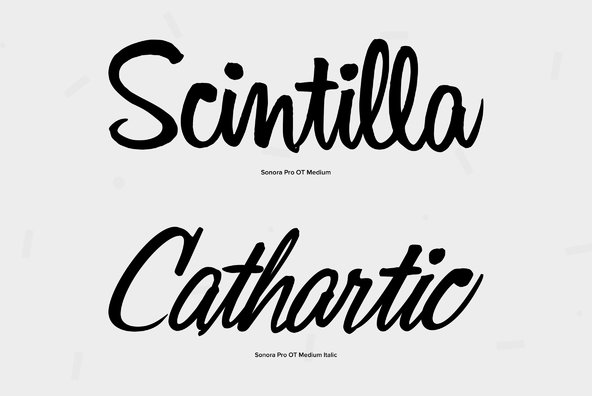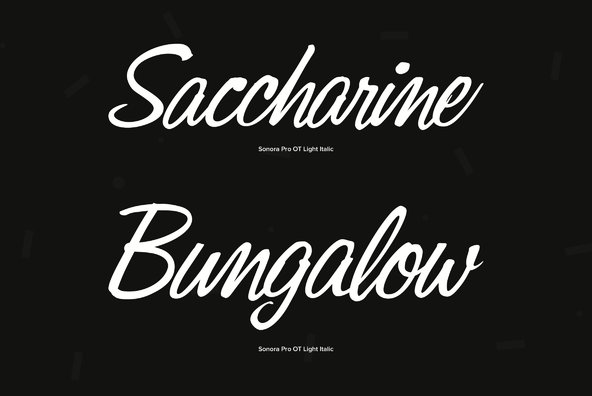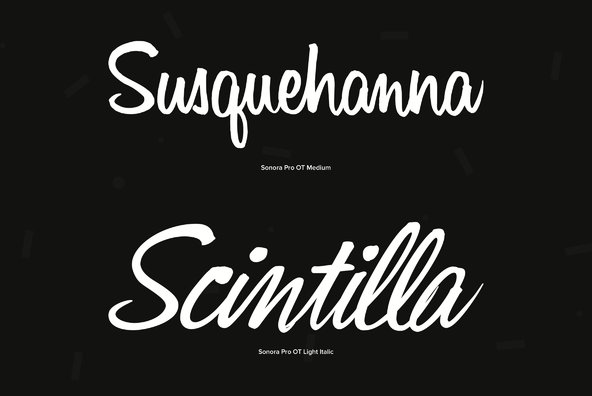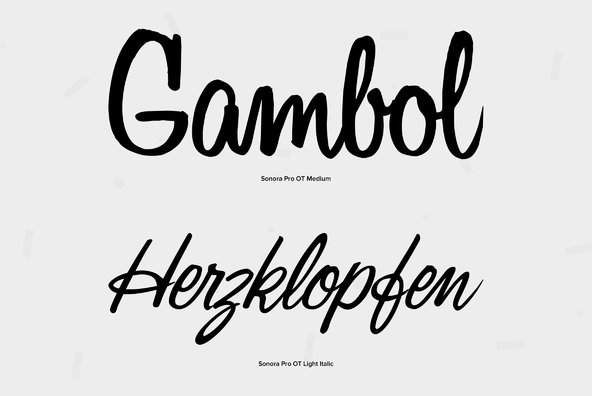
Sonora Pro
Sonora is a new profonts script typeface family supplied in the new OpenType Pro font format. Sonora contains six styles as light, medium, bold and the corresponding italics. The character set covers about 1.500 glyphs for the complete Latin character set (West, East, Baltic,Turkish, Romanian), and a huge number of handmade ligatures and alternates to make it a perfect OpenType Pro connecting script. Sonora is a very distinguished, elegant and versatile, intentionally non-slanted script font.